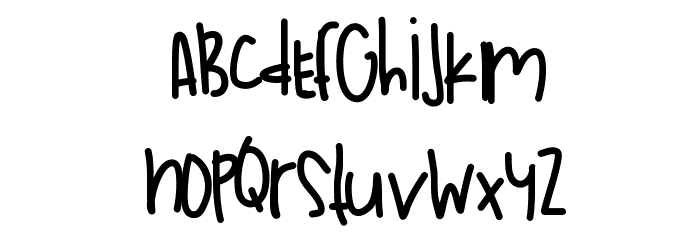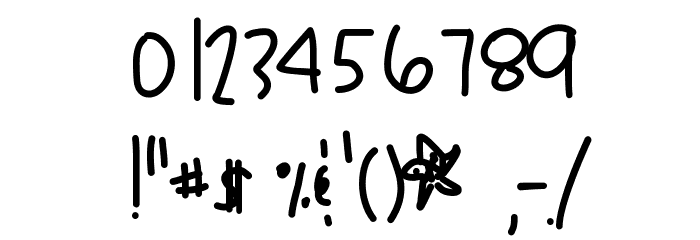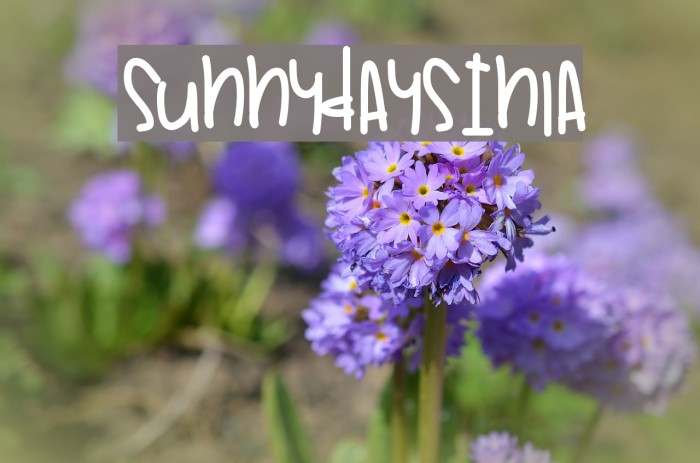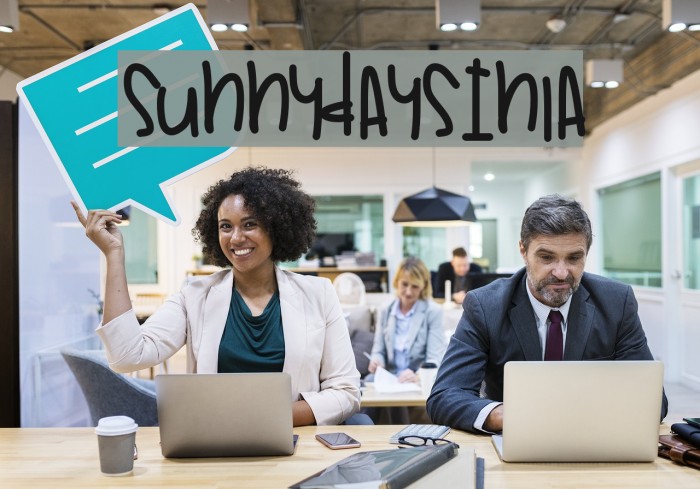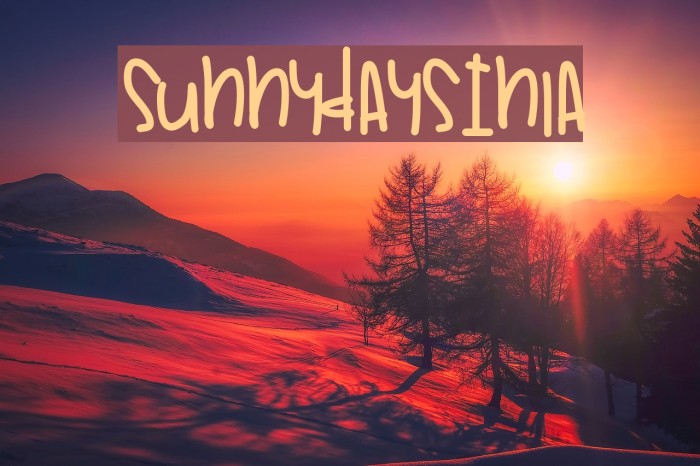
SunnyDaysInLa Font
This playful handwritten font exudes a casual and friendly vibe, characterized by its smooth, flowing curves and slightly irregular letterforms. The letters are bold and rounded, giving them a warm and inviting appearance. The font maintains a consistent stroke width, which contributes to its approachable and easygoing style. The spacing between characters is relatively tight, enhancing the cohesive look of the text. This font is perfect for projects that require a personal touch, such as greeting cards, invitations, or children's book illustrations. Its informal nature makes it ideal for conveying warmth and friendliness.
A playful and casual handwritten font with smooth, rounded curves.
- Proposed Projects: Greeting cards, invitations, children's books, personal branding.
- Character Spacing: Tight
- Overall Style: Casual
- Use Case: Headlines, Logos, Informal Text